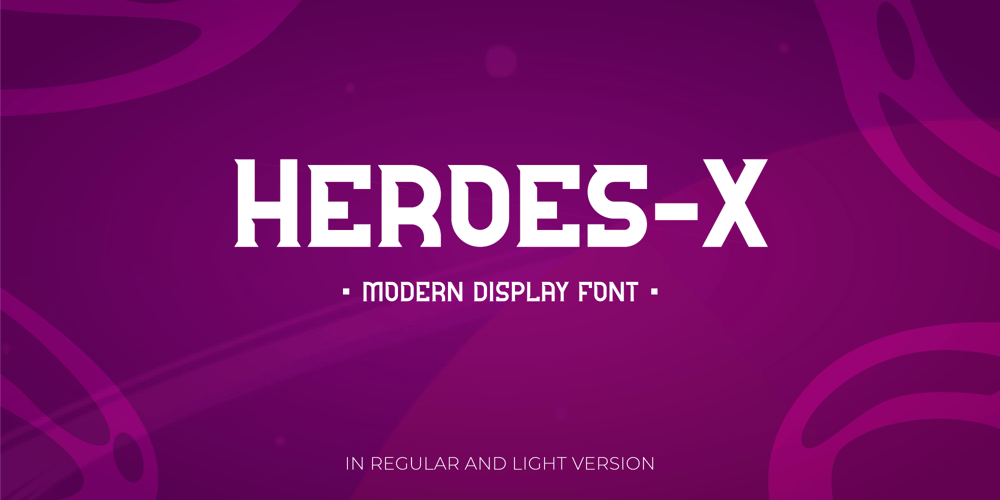
HeroesX Font Family was designed by Agustian Eko Saputro, Aprilia Nurina Putri and published by Mightyfire. HeroesX contains 2 styles and family package options. If you are looking for a font that have strong looks, meet HeroesX.We create HeroesX with a firm, strong and tough looks.This font is perfectly suit for book title, gymnastic logo, sport logo, game logo and any other creative arts.